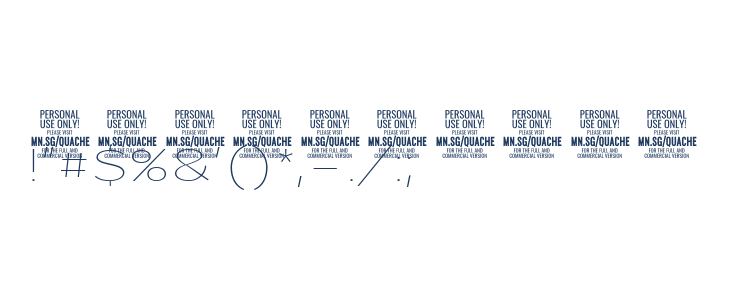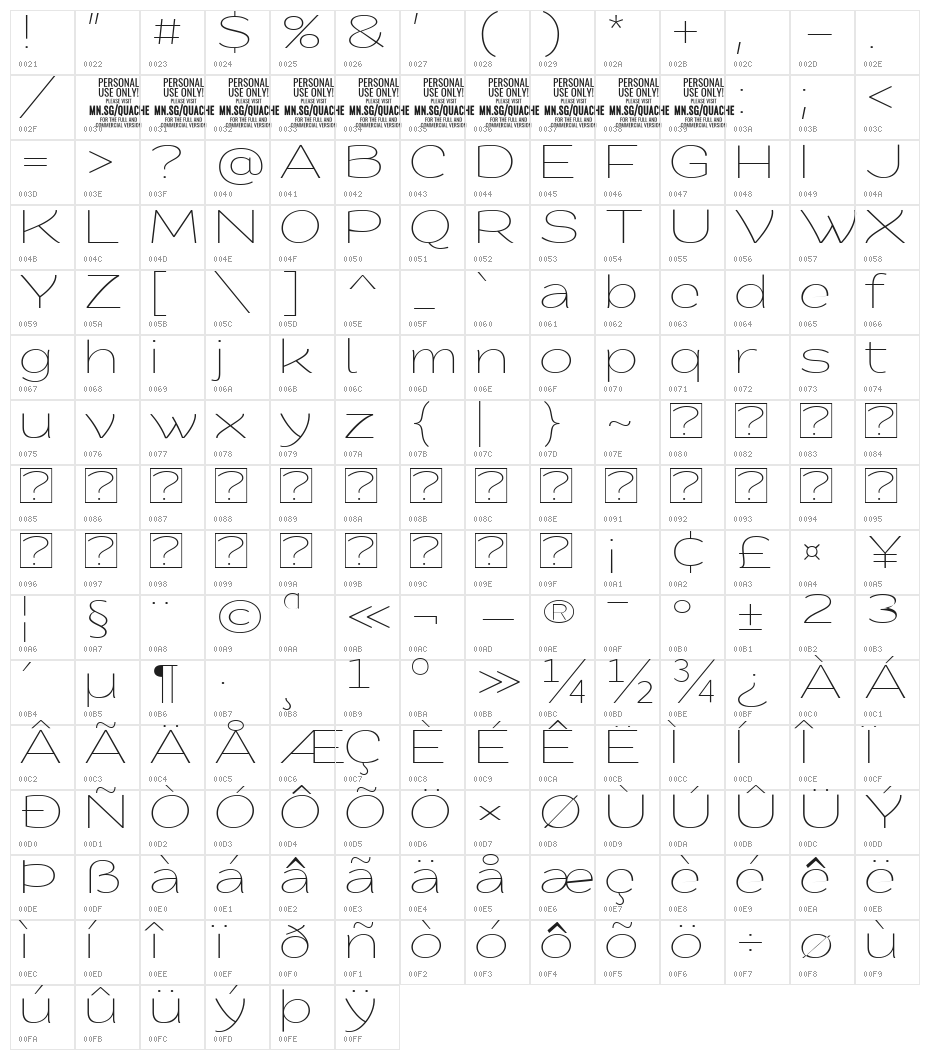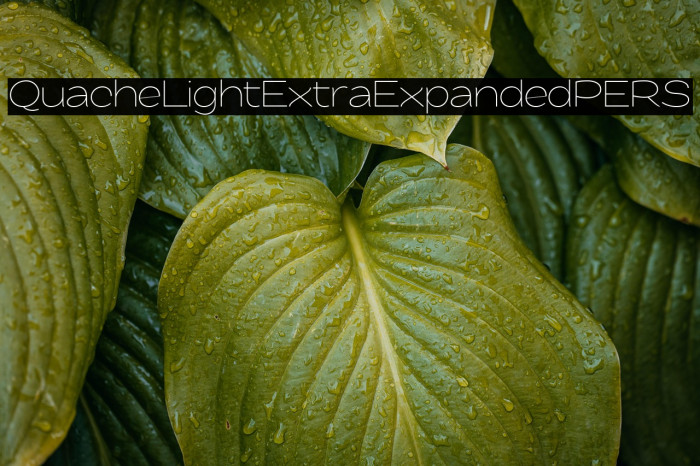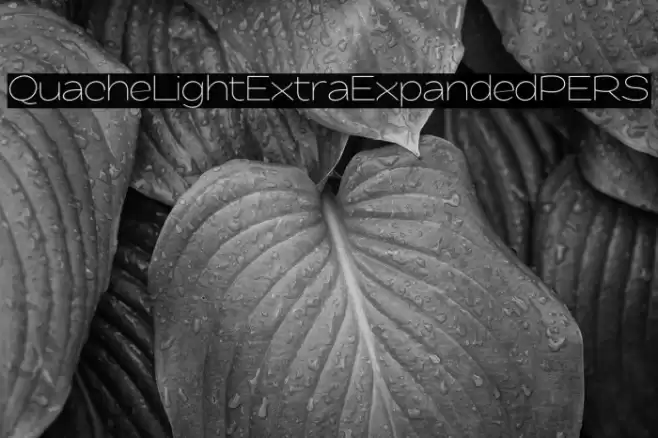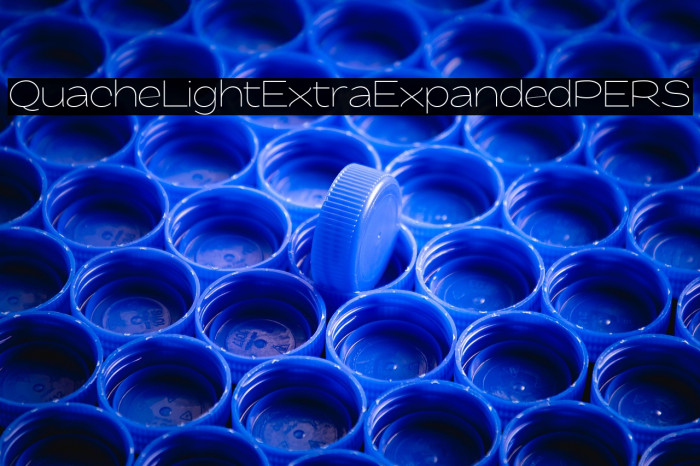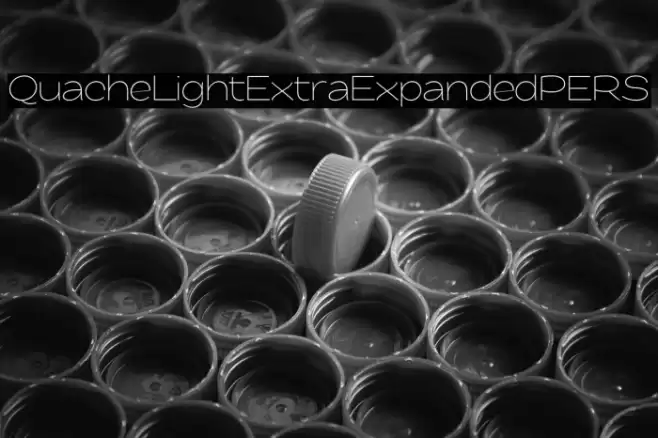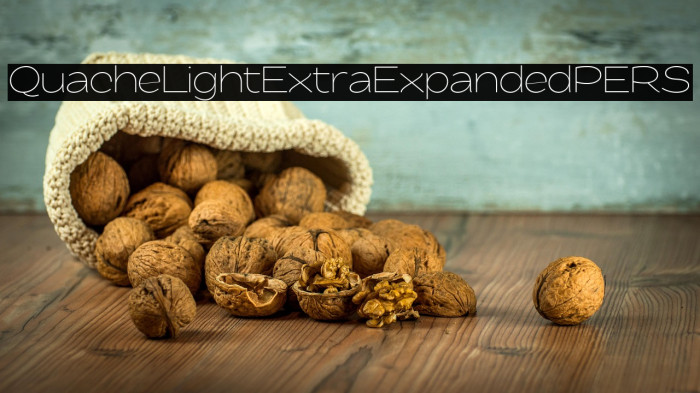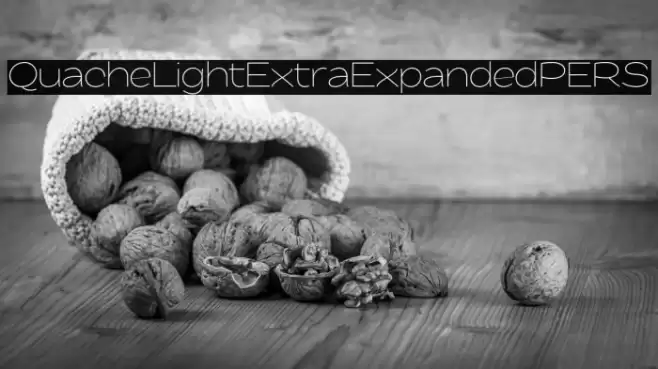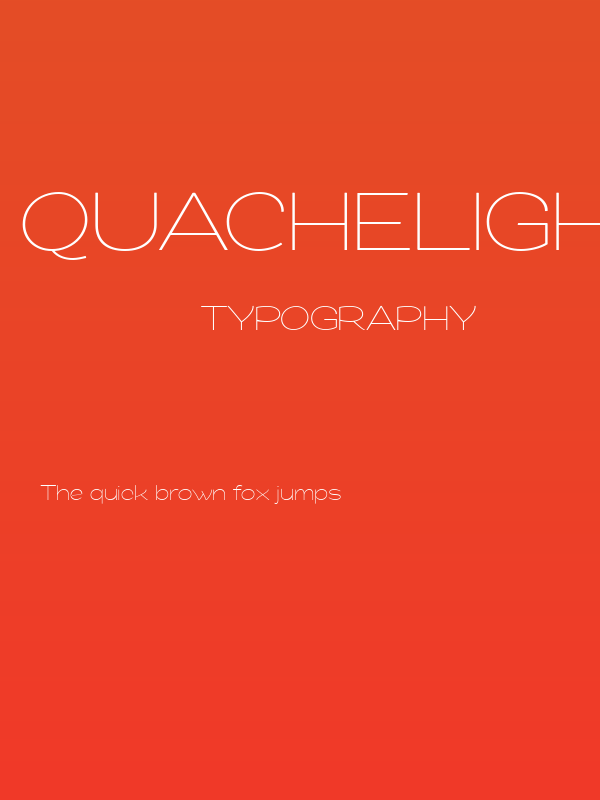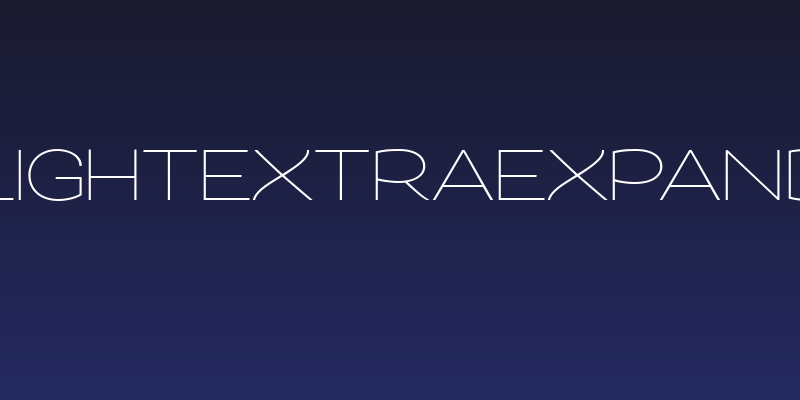
QuacheLightExtraExpandedPERS Font
QuacheLightExtraExpandedPERS Description
This font features a sleek and modern design with clean lines and an airy feel. The characters are extra expanded, giving them a wide appearance that enhances readability while maintaining a stylish aesthetic. The strokes are light, contributing to a minimalist and elegant look. This font is particularly suitable for contemporary designs, offering a sense of sophistication and clarity. The uppercase and lowercase letters are well-proportioned, and the numerals and special characters are designed to complement the overall style seamlessly.